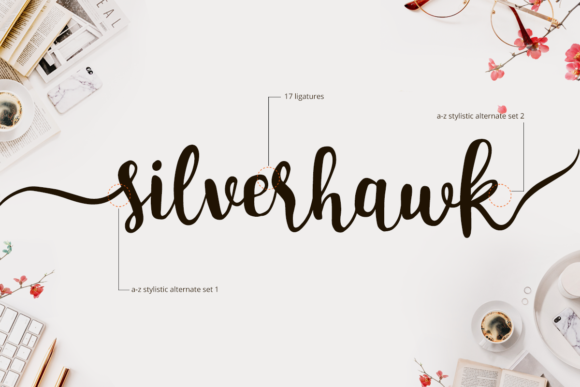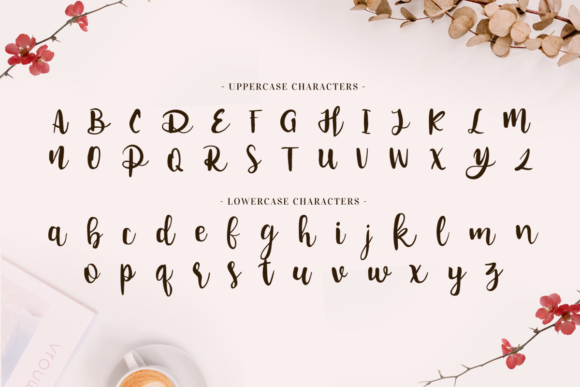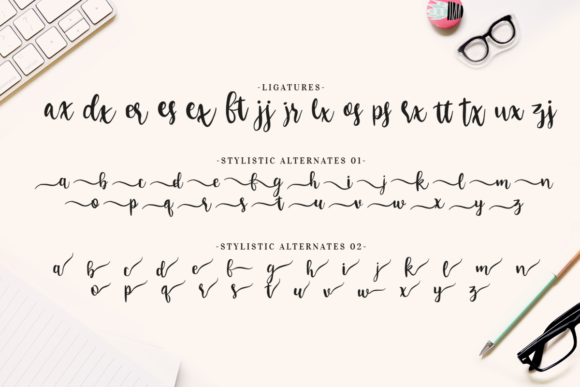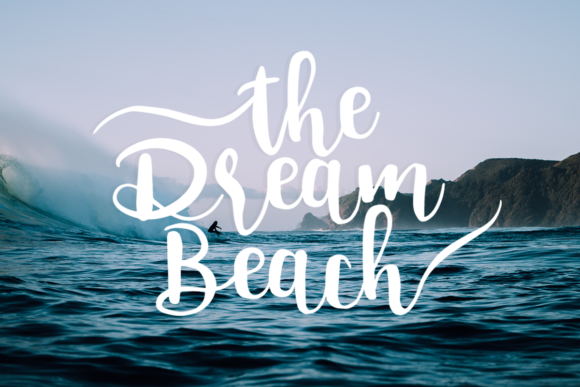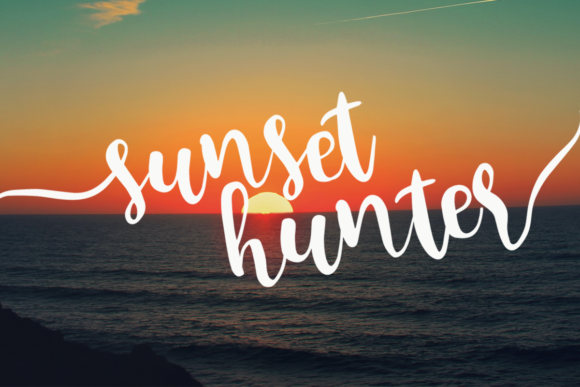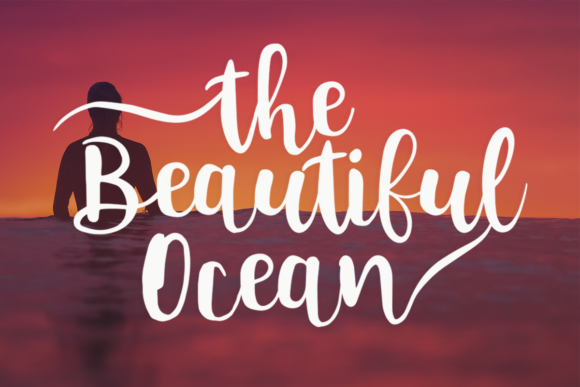
About Silverhawk Font
Silverhawk is a flowing handwritten font, described by an elegant touch, perfect for your favorite projects. Fall in love with its incredibly distinct and timeless style and use it to create spectacular designs!